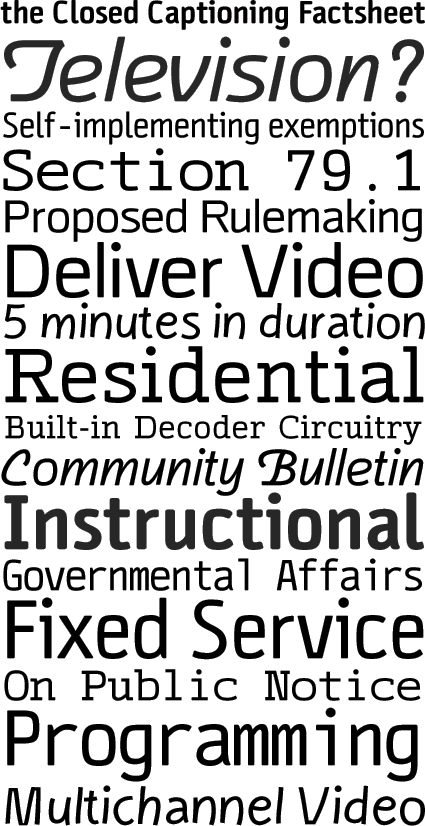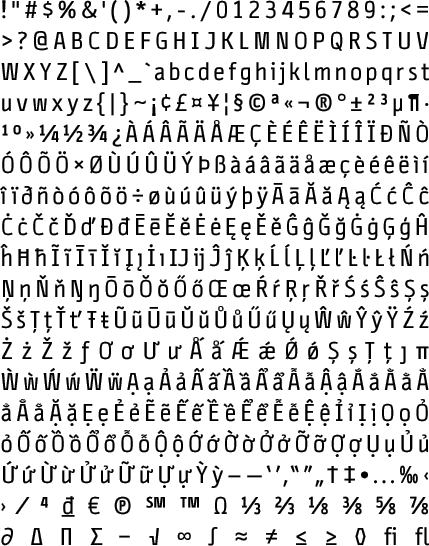
cinecav-x
The Cinecav™ X family is based on Cinecav™, a typeface created for closed caption television (CCTV) applications. Cinecav™ X is perfect for other video screen based applications such as videogames, DVD menus, iTV, and video kiosks, but unlike the standard Cinecav™ family, Cinecav™ X can’t be used in closed caption systems which require specialized character set & license agreement. Television manufacturers interested in closed caption fonts should visit www.ccfonts.com.